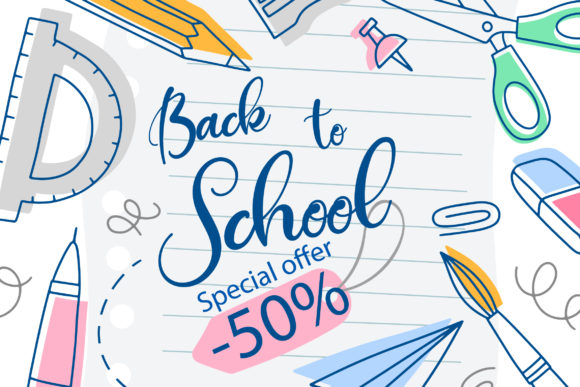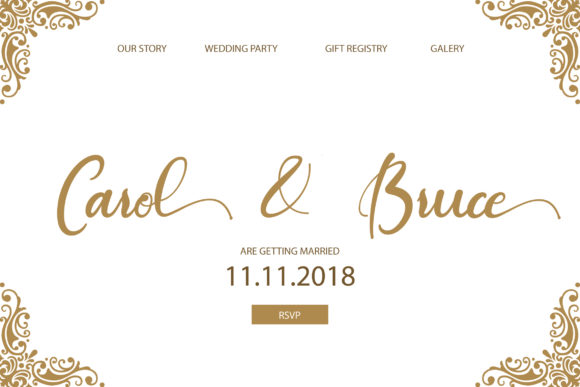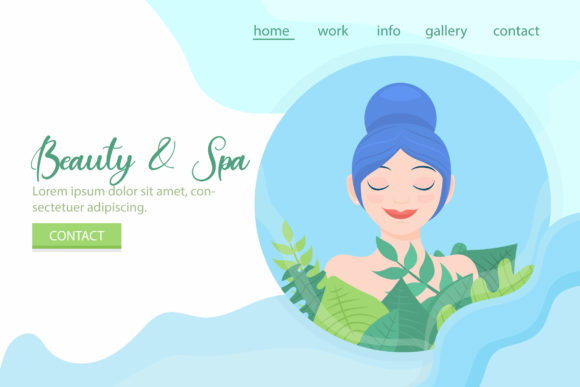
Baritta Script Font
About Baritta Script Font
Baritta is a lovely and sweet script, full of charm. With its cute charm and light attitude, it’s the perfect crafting font!